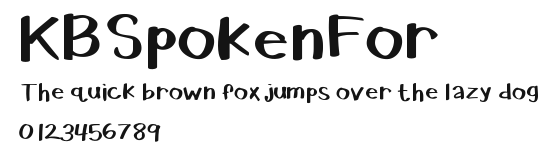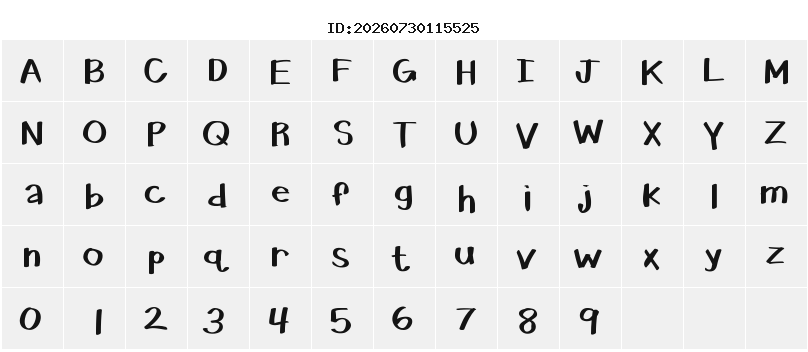
KBSpokenFor Preview
• Font Name: KBSpokenFor
• Full Font Name: KBSpokenFor
About KBSpokenFor.ttf
KBSpokenFor.ttf is a modern, elegant sans-serif font designed for ultimate readability and visual harmony. Perfect for branding, headlines, web design, and print materials.